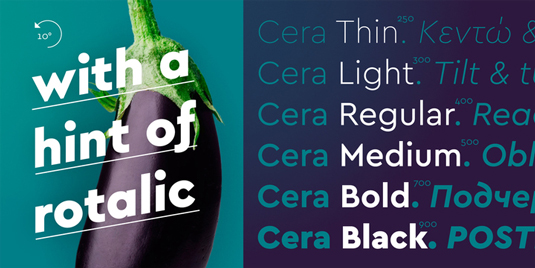
Font of the day: Cera
Cera by Jakob Runge
On the hunt for a new, eye-catching typeface? If so, Cera by Jakob Runge of TypeMates might just be what you're looking for. A clean, geometric design, Cera is great for variety of print and digital projects, especially headlines and posters.